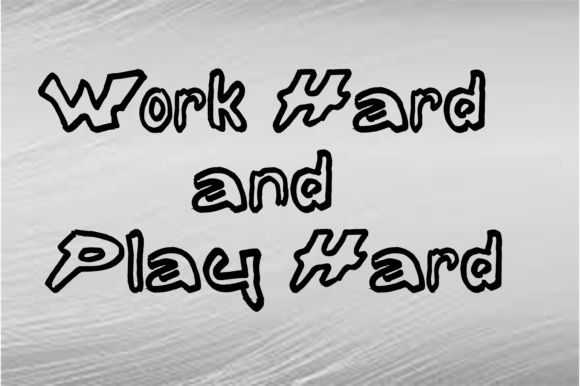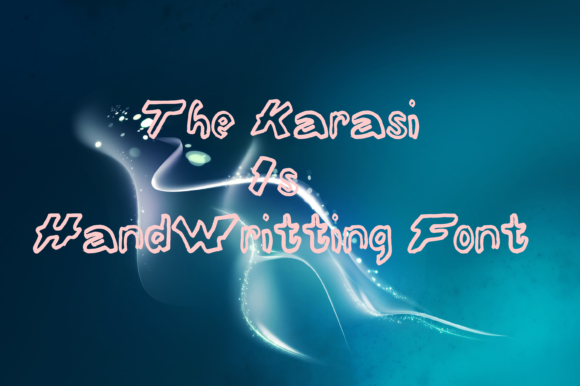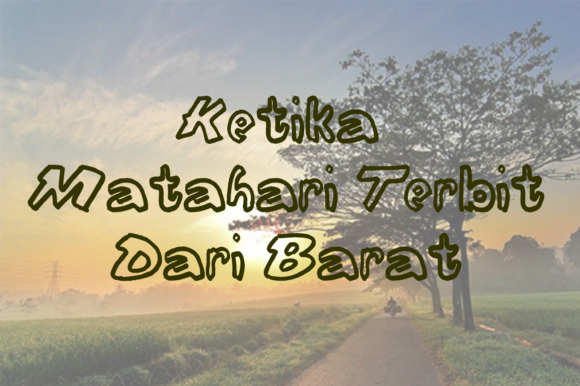
Karasi Font
About Karasi Font
The Karasi is a fun, bold, handwriting font with a fresh & modern style.
It’s suitable for logos, branding, greeting cards, posters, and much more!